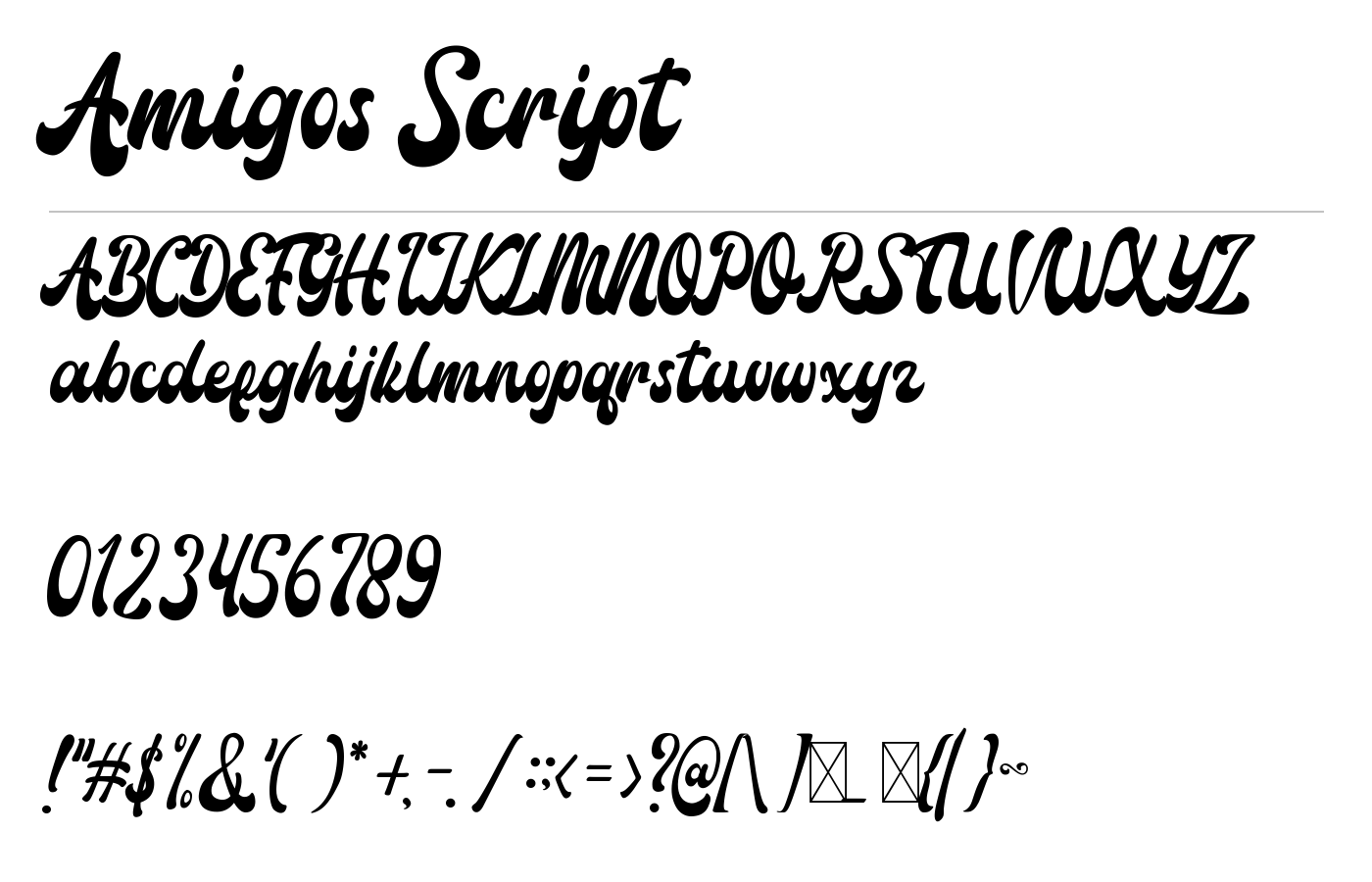
Amigos Script is a bold and lively script font with smooth, rounded strokes that create a friendly and inviting feel. Its flowing, connected letterforms and moderate contrast make it perfect for adding a playful yet confident touch to branding, packaging, and headlines where a warm, approachable personality is desired. This font shines in designs that seek a casual elegance with a touch of personality.
Amigos Script Font
About Amigos Script Font